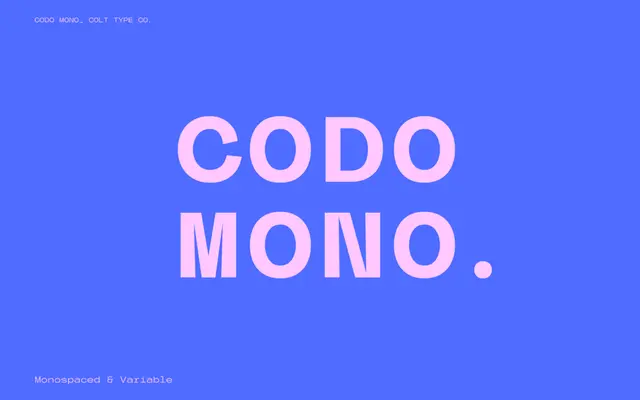
Codo Mono
A modern monospaced typeface in six weights with matching italics and variable weight versions, covering Western, Central and South-Eastern European Latin.
Codo Mono offers six weights from Thin to Bold with full italic counterparts and variable weight versions for both upright and italic styles. Stylistic alternatives are included to add distinction in branding, packaging and editorial contexts. Latin script coverage extends across Western, Central and South-Eastern European languages.
A fixed-width typeface with a modern, upright structure and no serif details, sitting squarely in the monospaced sans category suited to branding and editorial use.